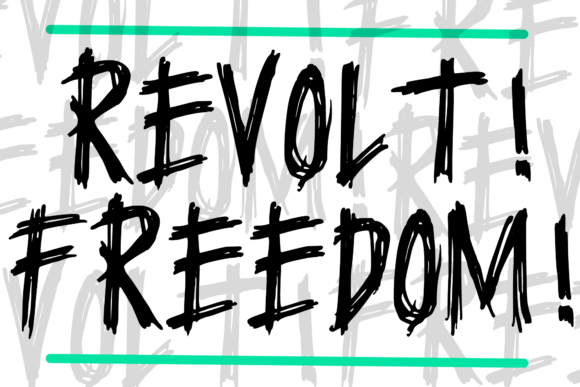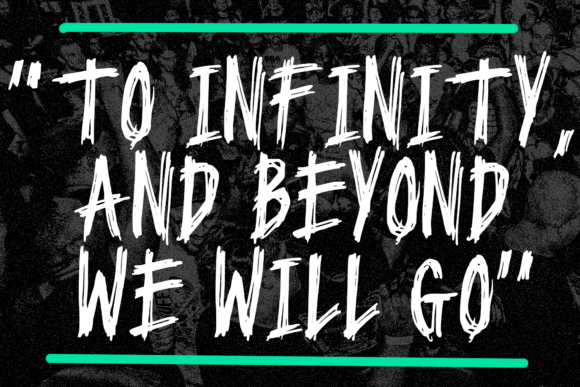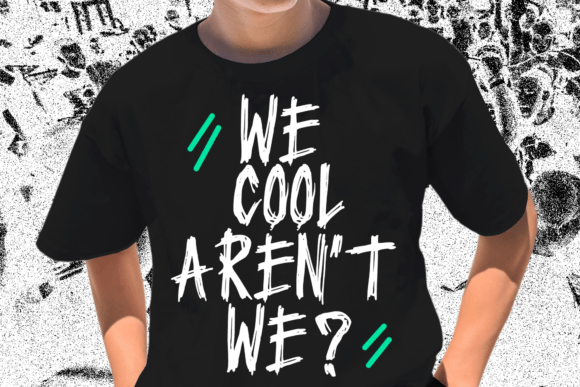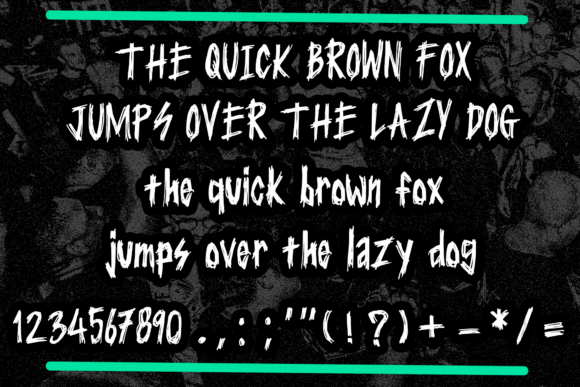
Introduction to Punk Terror Font Font
Fonts play a crucial role in design, and the Punk Terror Font font is a typeface that brings both character and versatility to any project. Whether you’re working on a branding project, a website, or a print design, the Punk Terror Font font offers a unique style that can elevate your work.
Unleash the rebel in your designs with Punk Terror, the resounding punk rock band-inspired display font.
A perfect synchrony of anarchy and artistry, Punk Terrorβs audacious style brings out a captivating appeal From crafting arresting movie posters, iconic single covers, enthralling posters, quirky stickers to trendsetting apparel and merch designs, elevate your creations to new echelons of cool.
Key Features of Punk Terror Font Font
Why Choose Punk Terror Font Font?
The Punk Terror Font font is more than just a typeface β it’s a design tool that helps you communicate your message with style and clarity. Its unique character set and versatile design make it suitable for a wide range of applications, from elegant invitations to bold headlines.
With its carefully crafted letterforms and balanced proportions, the Punk Terror Font font ensures readability and visual appeal across all mediums.
What makes Punk Terror Font font special?
The Punk Terror Font font stands out with its unique design, exceptional readability, and versatility across various design applications.